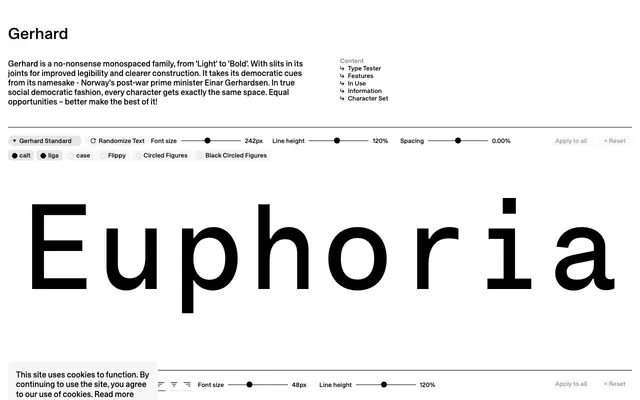
Gerhard
A five-weight monospaced family by William Stormdal, drawing on Scandinavian social-democratic egalitarianism as its guiding principle for equal character spacing.
Designed in Norway in 2022 by William Stormdal, the family runs from Light to Bold across five cuts, each character allotted identical space without exception. Slit openings at joints distinguish the construction and improve legibility at smaller sizes. OpenType features include contextual automatic arrows, circled and black circled figures, and a flippy alternate set.
Gerhard is explicitly classified as Mono by the foundry; each character occupies an identical advance width, with a clean, constructed sans structure and slit joints for legibility.